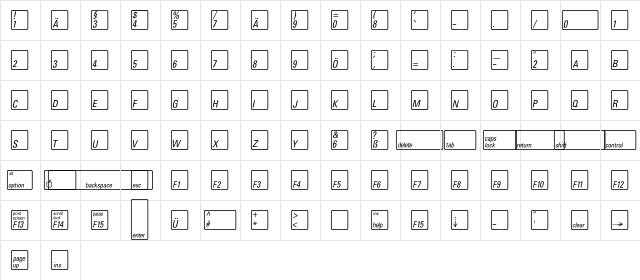
KeyFontDeutsch Bold Font Preview
KeyFontDeutsch Bold
KeyFontDeutsch Bold Font Details
Design Context for KeyFontDeutsch Typeface
KeyFontDeutsch takes a measured approach to typography — its balanced proportions and neutral character make it a reliable workhorse for both digital and print work. The heavy weight commands attention and anchors typographic hierarchies.